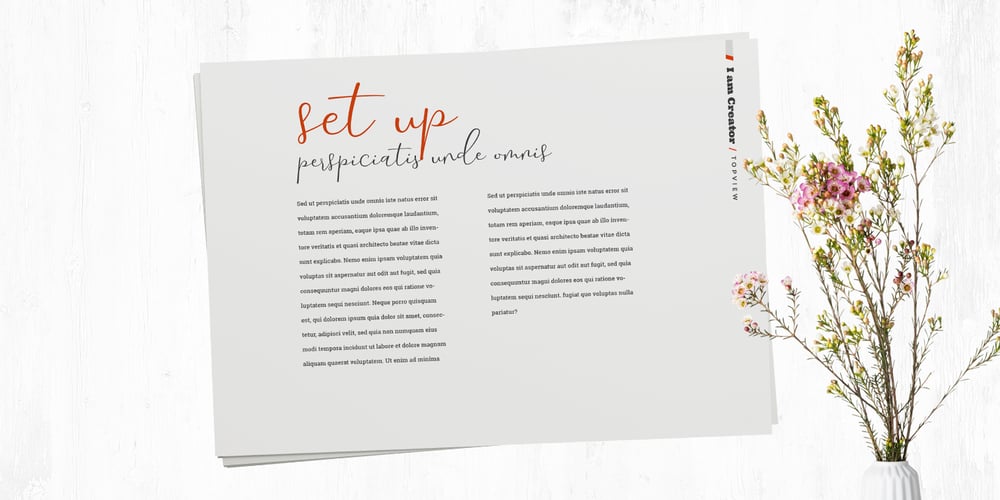
Yolan Script
Yolan Script font
Yolan Script Font Family was designed by Juni Fadil Putra and published by FadeLine Studio. Yolan Script contains 1 styles and family package options. This is a new font script with a unique and thin style. Not only unique, the font is made in detail also has an elegant style, sweet, simple and firm character. With a unique style that dancing, this font can make your design more alive. When you use this font sometimes you do not need to use other fonts pairing, this font can be used in single, but still as you wish! If you are curious, please try it! With a style like this, this font will be suitable in use for logo’s, branding projects, homeware designs, product packaging, mugs, quotes, posters, shopping bags, logo’s, t-shirts, book covers, name card, invitation cards, greeting cards, and all your other lovely projects.